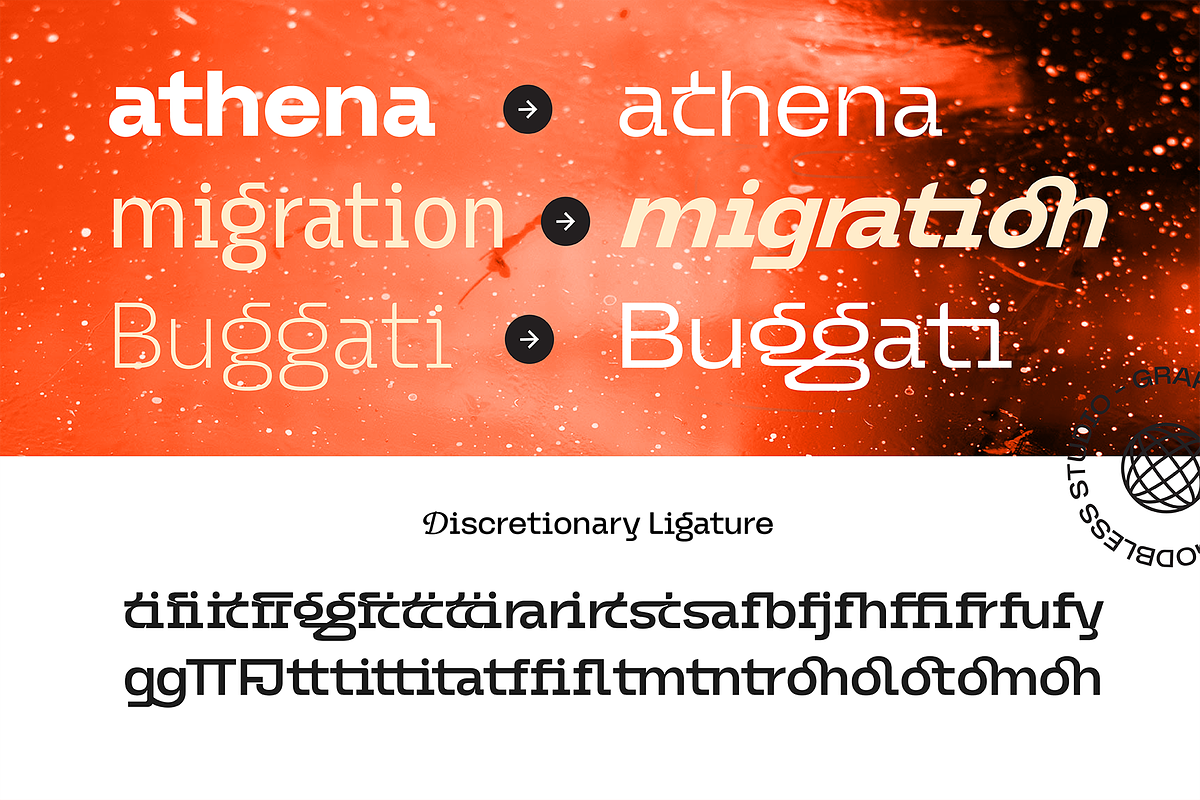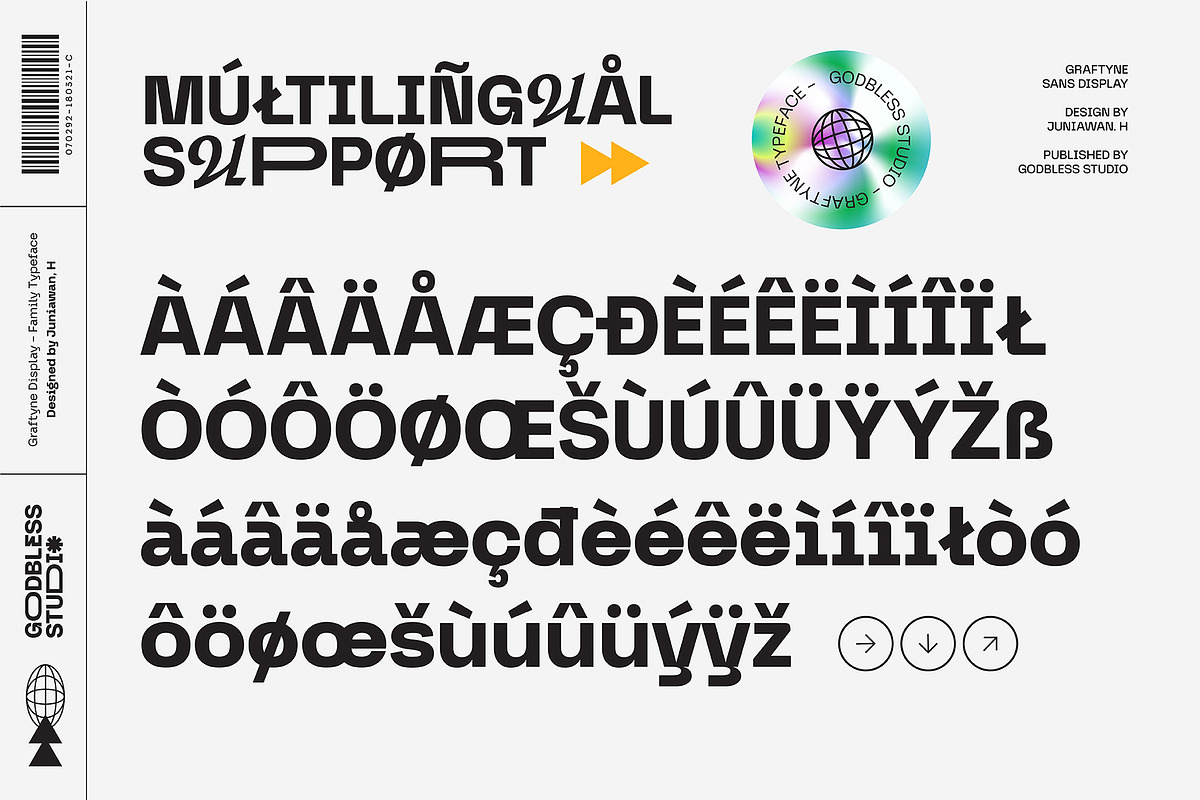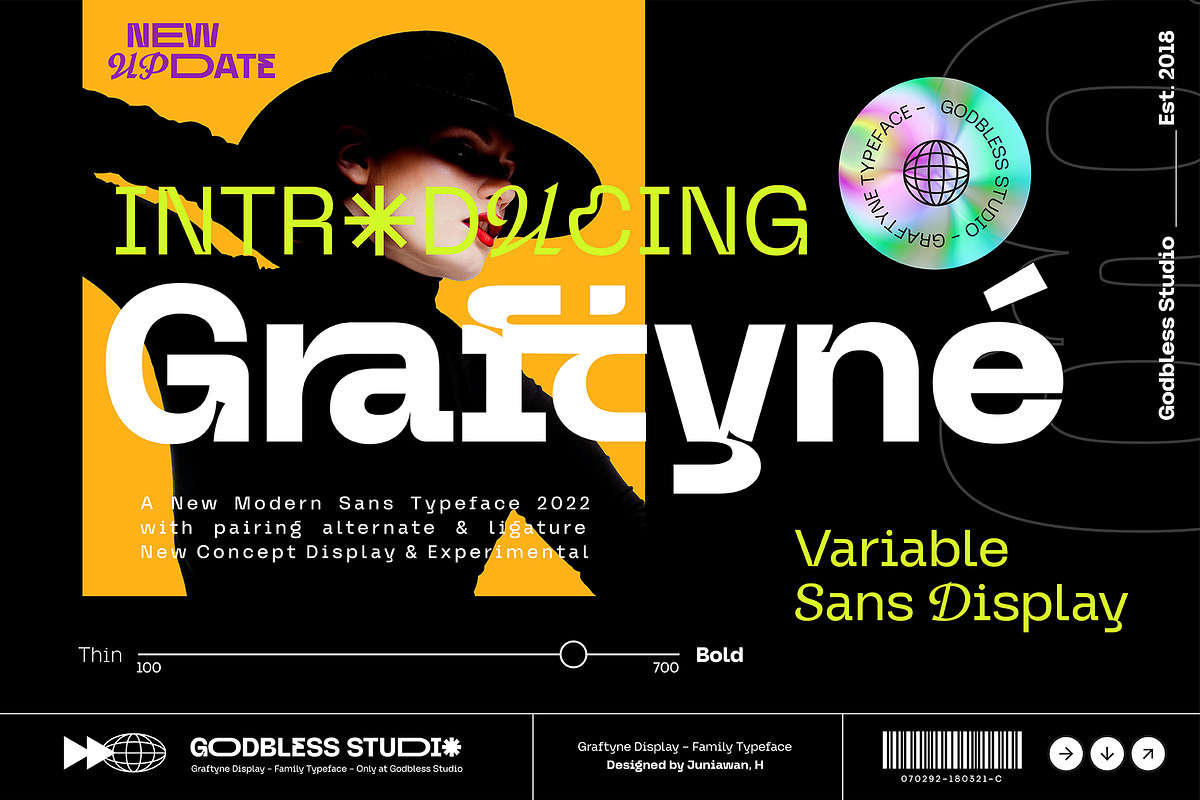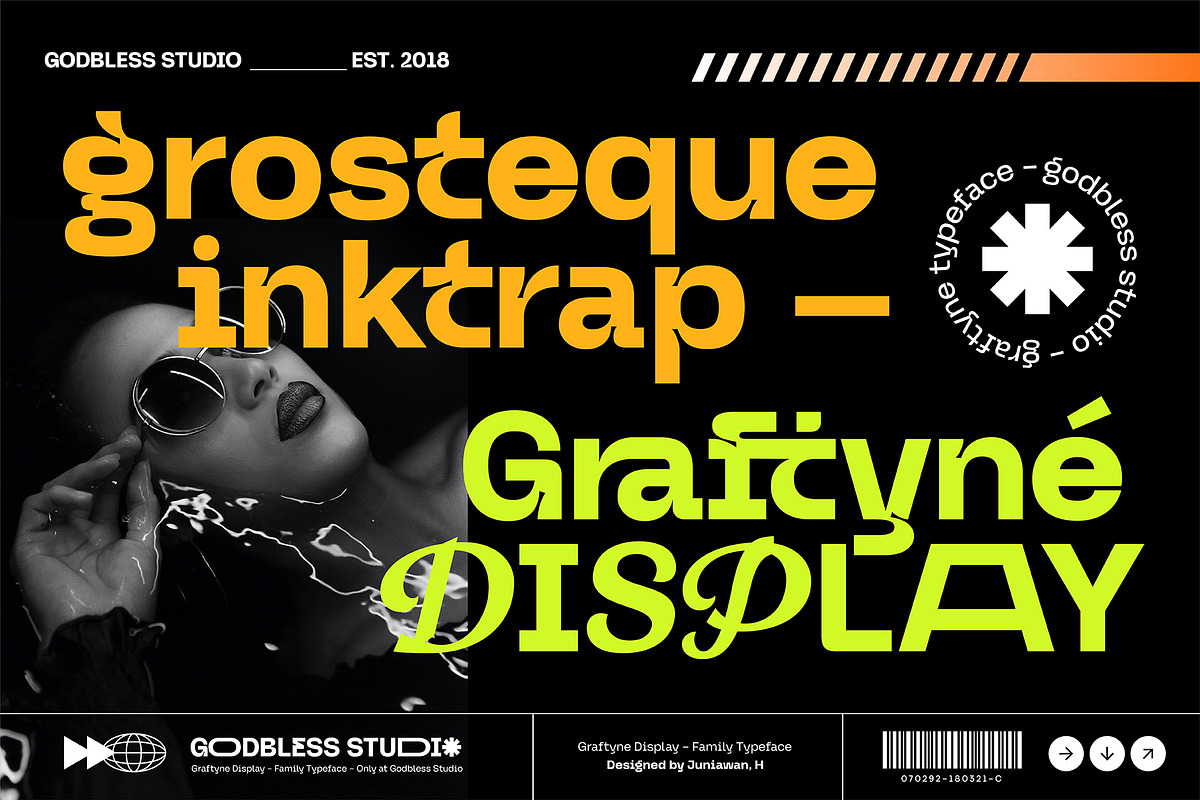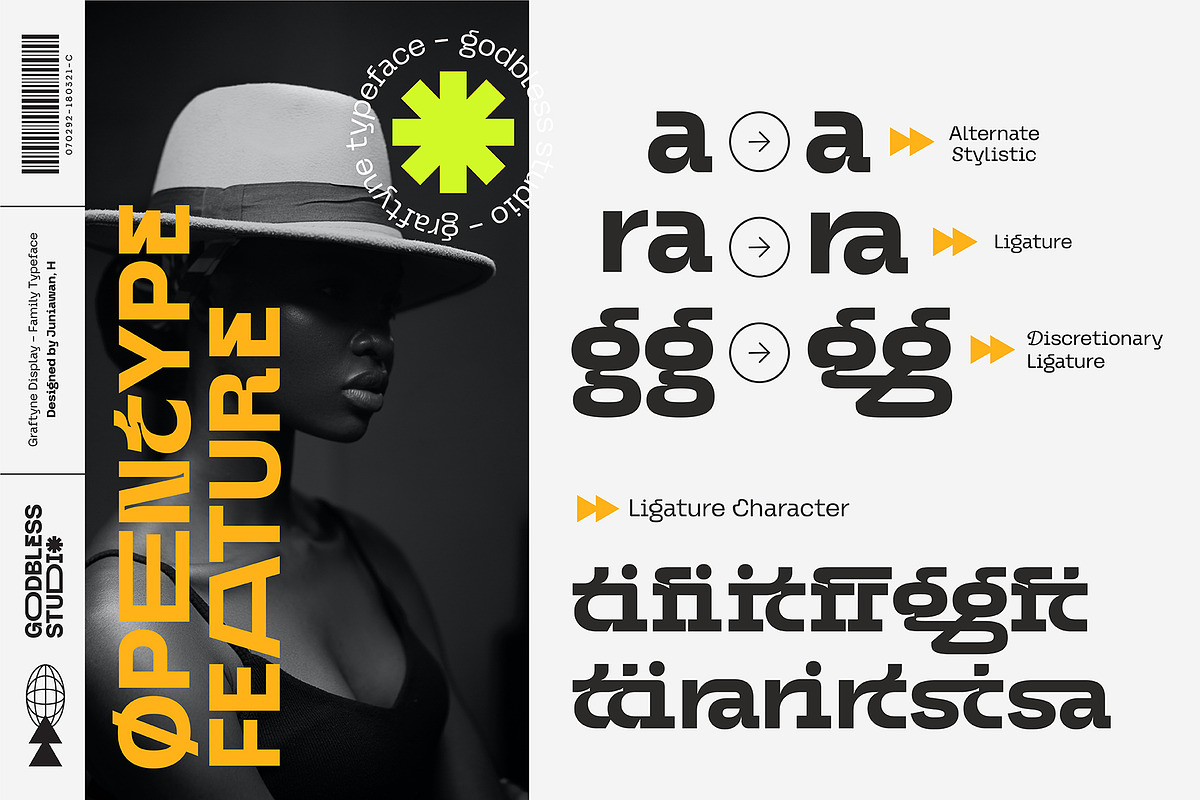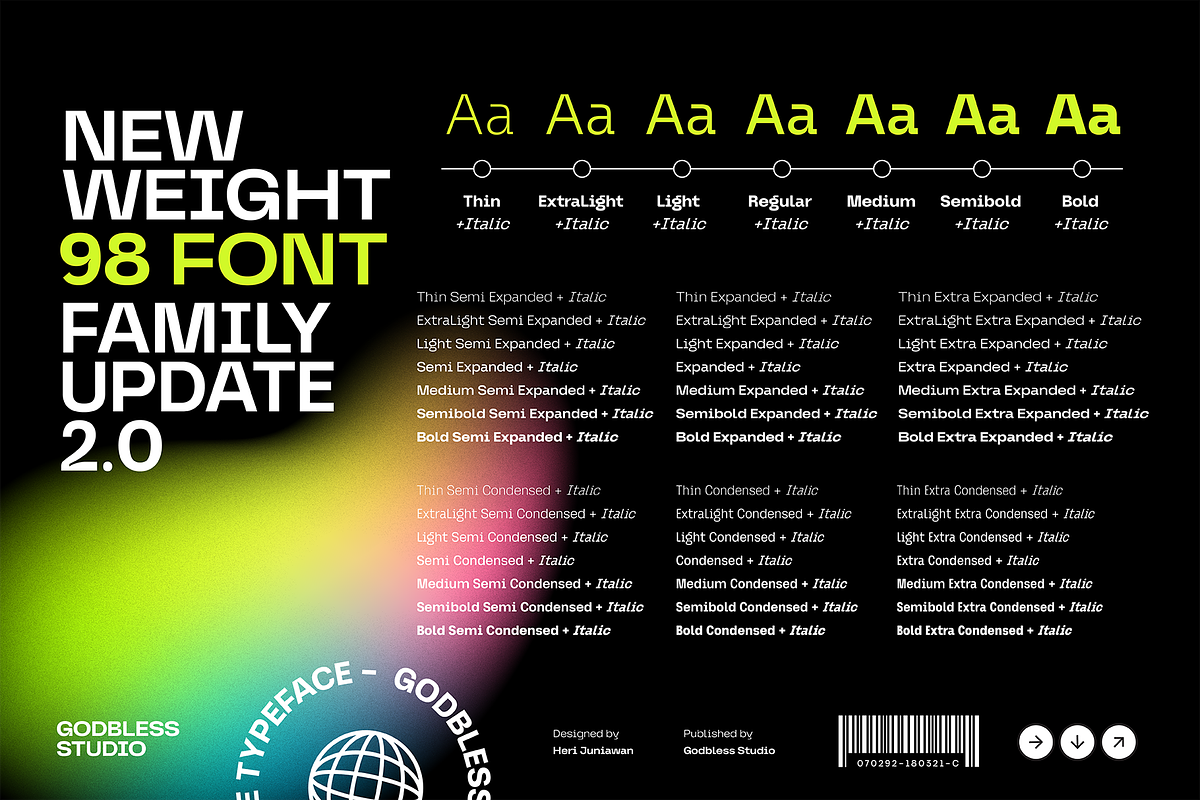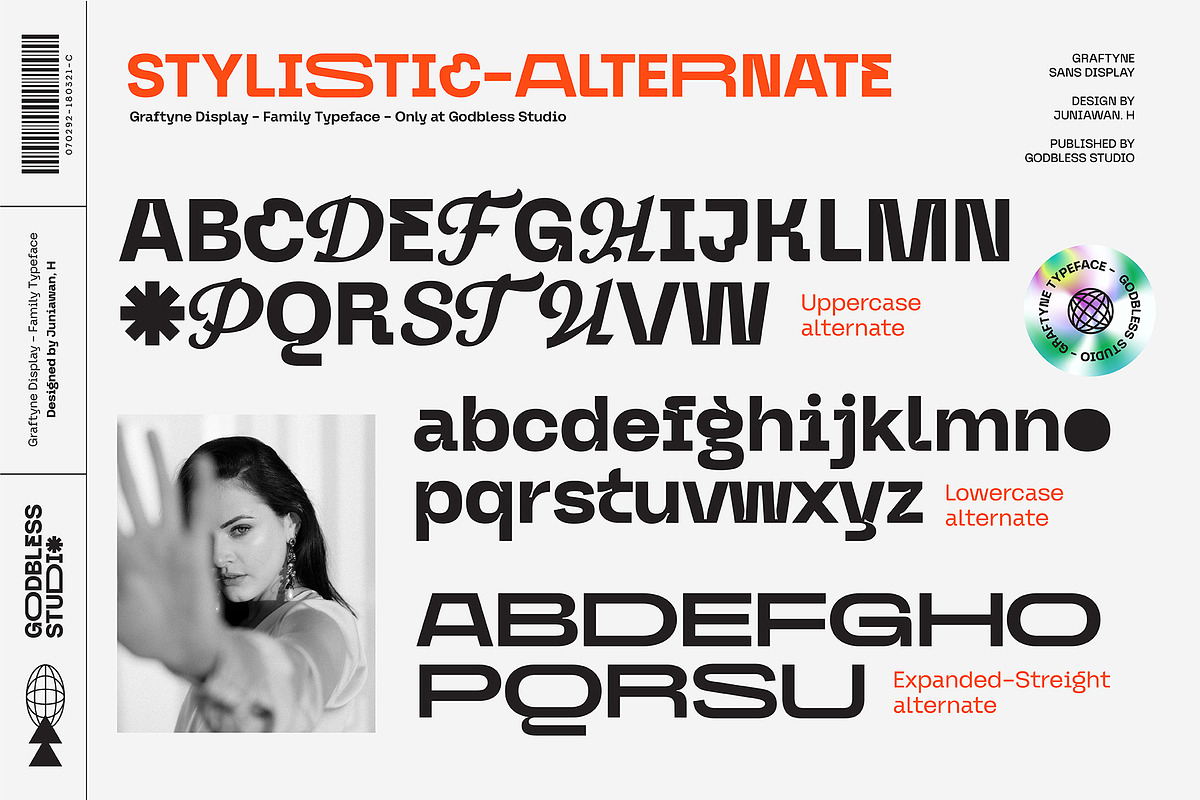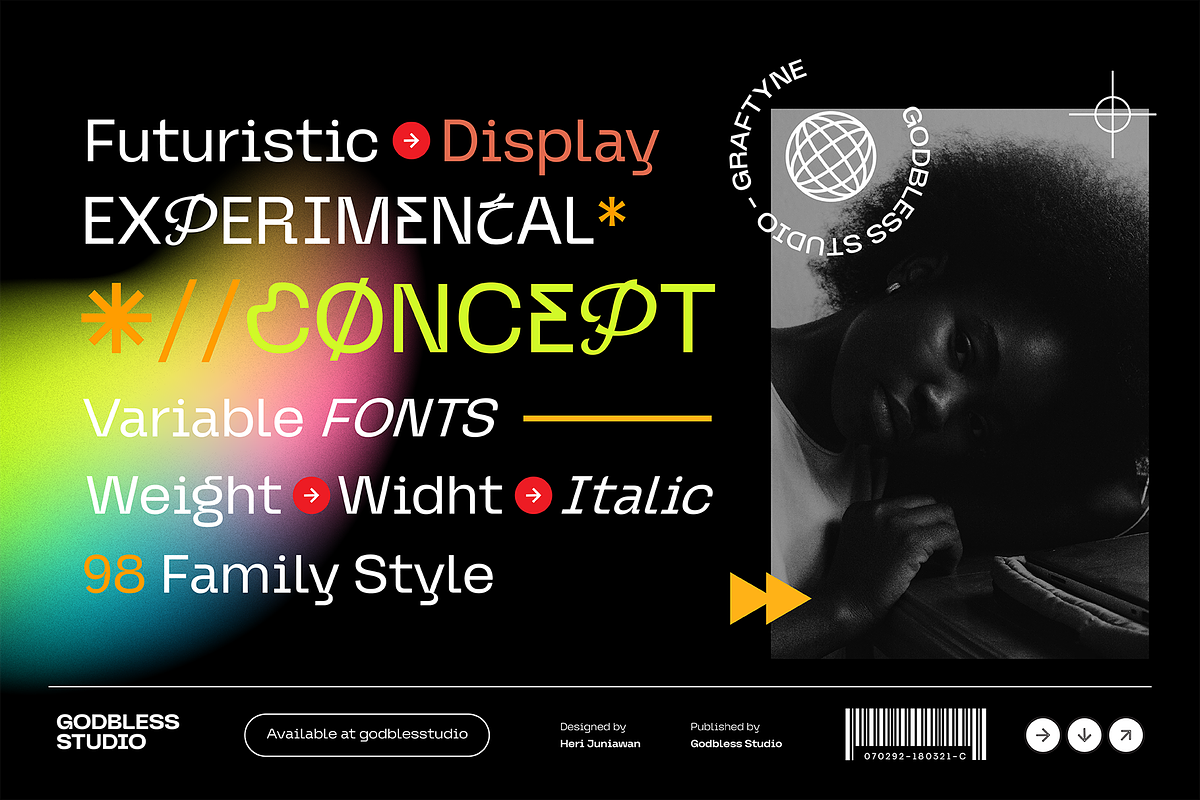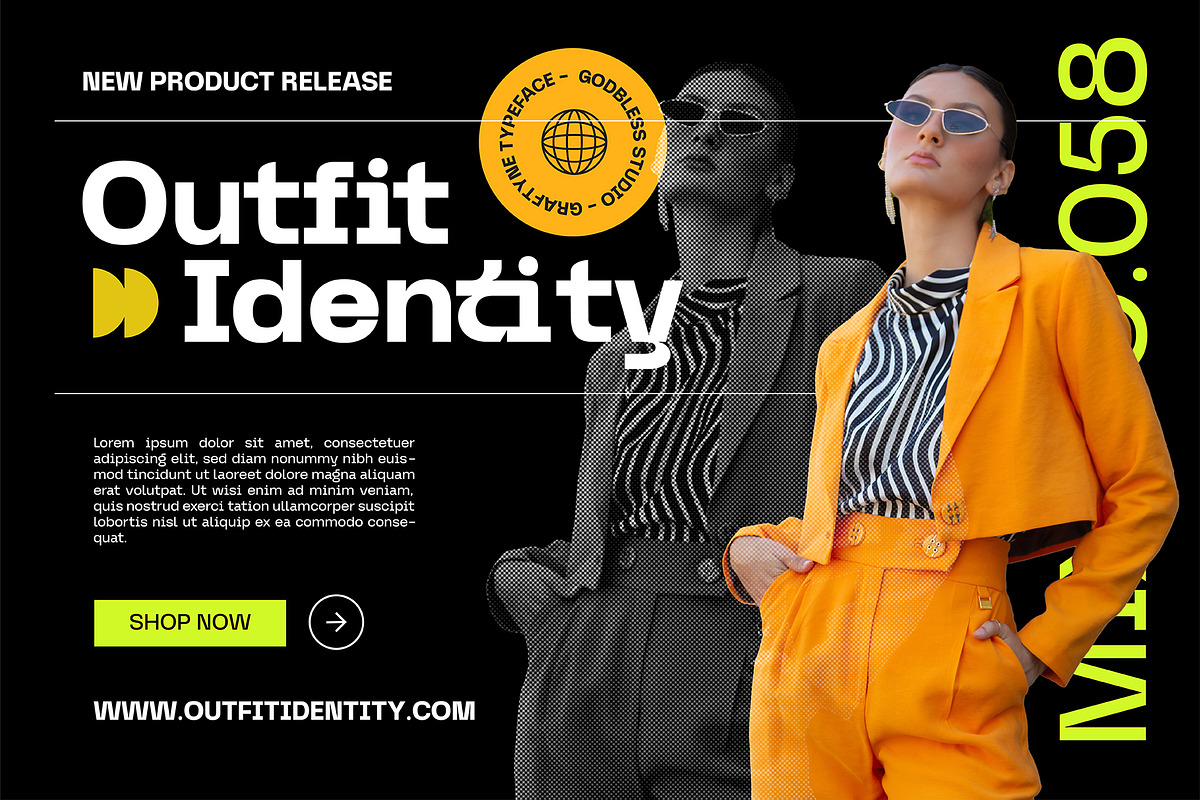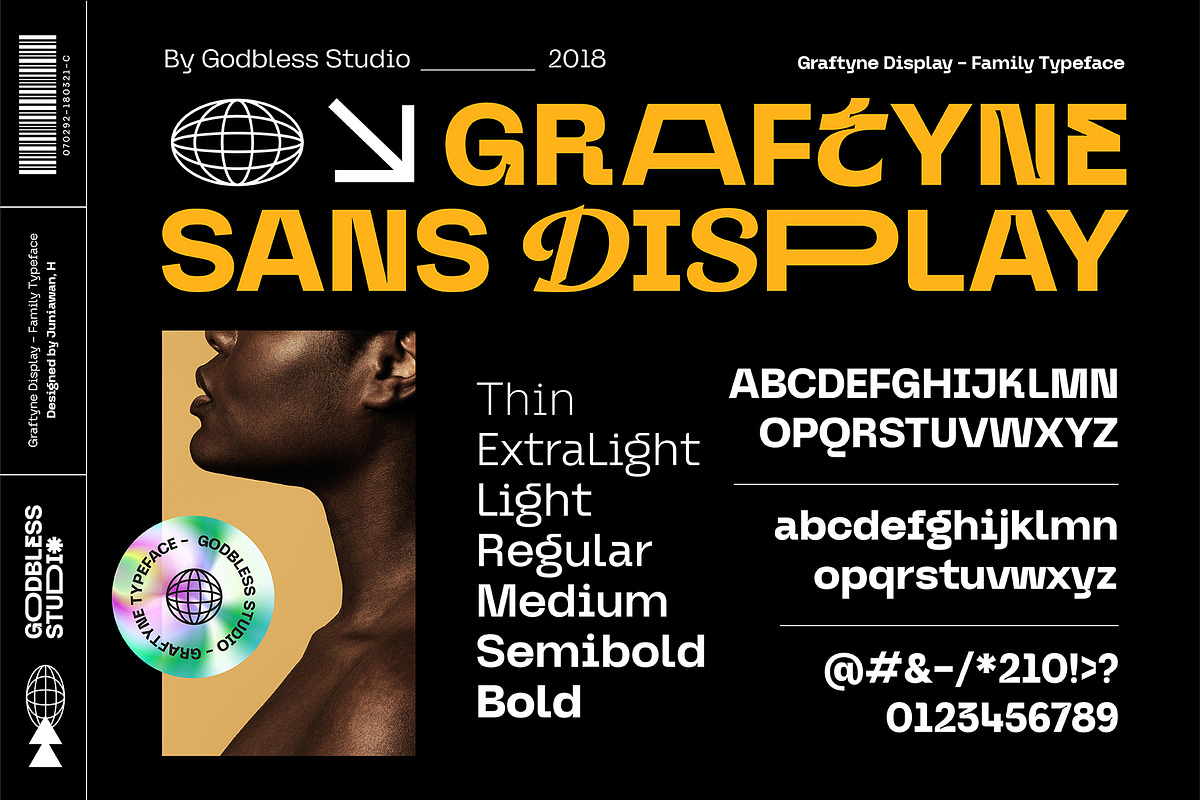
Graftyne sans serif typeface with a unique personality. It comes in normal and display alternate, each with 98 weights font variable.
Graftyne sans serif typeface is flavor in motion and each part of its system works together to captivate you, combining emotion and usability, allowing you to create attractive and unique designs.
graftyne is made experimentally following a futuristic style recipe with alternate characters made with inktrap and display that makes this font more stylish and varied.
Graftyne is a variable font that has 98 weights from thin to bold. also includes alternates that are more varied with variables.
Graftyne sans is a versatile font system, designed primarily for display uses with a need of visual impact.
Variable :
- Thin
- Light
- Extra Light
- Medium
- Semibold
- Bold
- Discretionary Ligature
- Numeral & Puctuation
This font has so much character—something I'm always looking out for when I go shopping for a sans serif. With the high level of customizability and the readability of the basic font itself, this is an ideal font for use in headlines, logos, subtitles, and short body copy! Overall, extremely versatile and memorable.